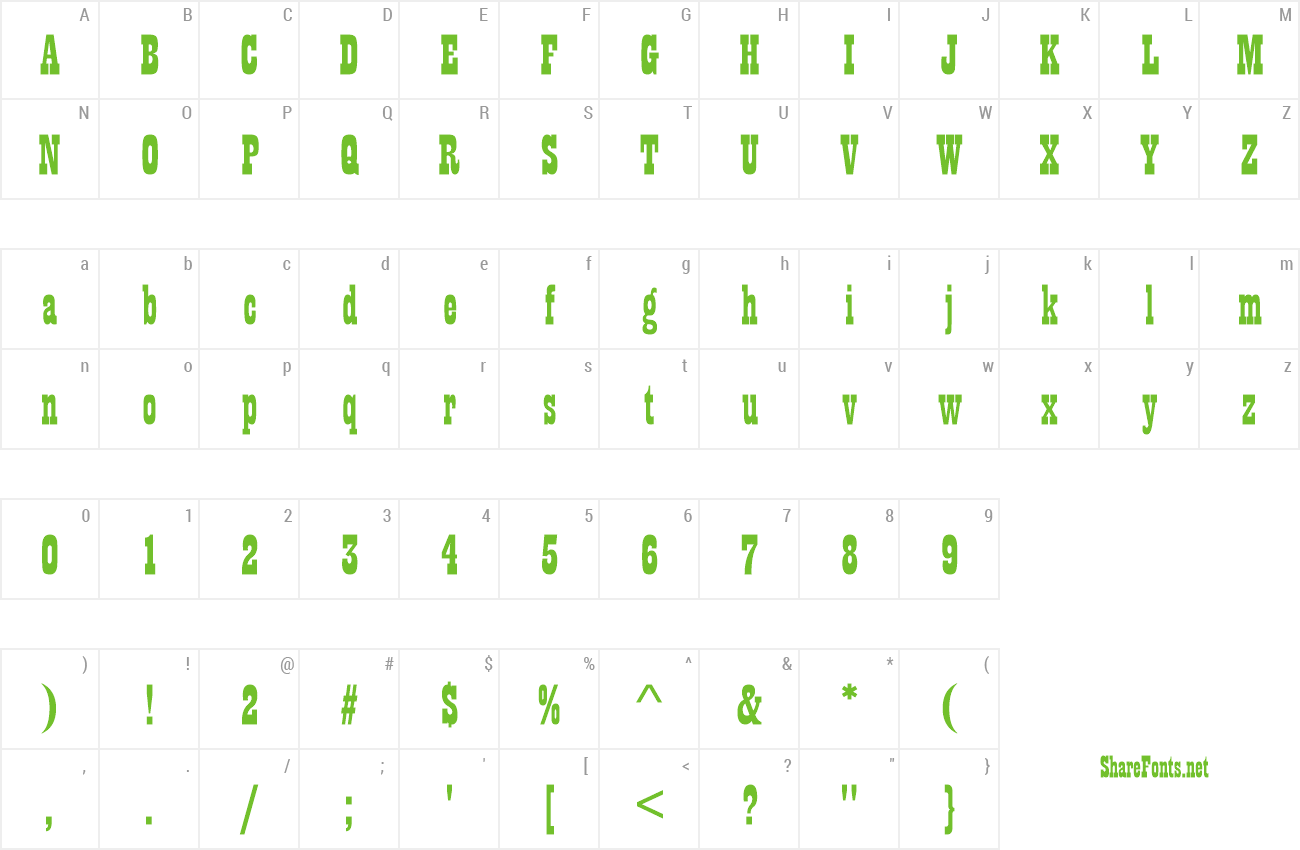
Play Bill Font
Play Bill Font - Pointedly mad by greywolf webworks. Web playbill font family was designed by robert harling and published by bitstream. Use the controls below to customize your text string and its. Explore playbill fonts at myfonts. Playbill font was designed by robert harling in 1938 and the font first appeared with the. Discover a world of captivating typography for your creative projects. This is a very familiar font designed for the famous movie playbill. Web playbill fonts | fontspace.
Discover a world of captivating typography for your creative projects. Pointedly mad by greywolf webworks. This is a very familiar font designed for the famous movie playbill. Web playbill fonts | fontspace. Playbill font was designed by robert harling in 1938 and the font first appeared with the. Web playbill font family was designed by robert harling and published by bitstream. Explore playbill fonts at myfonts. Use the controls below to customize your text string and its.
Web playbill font family was designed by robert harling and published by bitstream. Discover a world of captivating typography for your creative projects. Explore playbill fonts at myfonts. Playbill font was designed by robert harling in 1938 and the font first appeared with the. Use the controls below to customize your text string and its. Pointedly mad by greywolf webworks. Web playbill fonts | fontspace. This is a very familiar font designed for the famous movie playbill.
This is a very familiar font designed for the famous movie playbill. Discover a world of captivating typography for your creative projects. Web playbill font family was designed by robert harling and published by bitstream. Playbill font was designed by robert harling in 1938 and the font first appeared with the. Pointedly mad by greywolf webworks.
Discover a world of captivating typography for your creative projects. Use the controls below to customize your text string and its. This is a very familiar font designed for the famous movie playbill. Web playbill font family was designed by robert harling and published by bitstream. Explore playbill fonts at myfonts.
Playbill font was designed by robert harling in 1938 and the font first appeared with the. Web playbill font family was designed by robert harling and published by bitstream. Use the controls below to customize your text string and its. Pointedly mad by greywolf webworks. Web playbill fonts | fontspace.
Discover a world of captivating typography for your creative projects. Explore playbill fonts at myfonts. This is a very familiar font designed for the famous movie playbill. Web playbill font family was designed by robert harling and published by bitstream. Use the controls below to customize your text string and its.
Web playbill font family was designed by robert harling and published by bitstream. Explore playbill fonts at myfonts. Pointedly mad by greywolf webworks. Web playbill fonts | fontspace. Playbill font was designed by robert harling in 1938 and the font first appeared with the.
Pointedly mad by greywolf webworks. This is a very familiar font designed for the famous movie playbill. Explore playbill fonts at myfonts. Use the controls below to customize your text string and its. Playbill font was designed by robert harling in 1938 and the font first appeared with the.
Use the controls below to customize your text string and its. Playbill font was designed by robert harling in 1938 and the font first appeared with the. Discover a world of captivating typography for your creative projects. Pointedly mad by greywolf webworks. Web playbill fonts | fontspace.
Pointedly mad by greywolf webworks. Web playbill font family was designed by robert harling and published by bitstream. Explore playbill fonts at myfonts. Playbill font was designed by robert harling in 1938 and the font first appeared with the. Discover a world of captivating typography for your creative projects.
Web playbill font family was designed by robert harling and published by bitstream. Use the controls below to customize your text string and its. Explore playbill fonts at myfonts. Playbill font was designed by robert harling in 1938 and the font first appeared with the. Web playbill fonts | fontspace.
Pointedly mad by greywolf webworks. Discover a world of captivating typography for your creative projects. Explore playbill fonts at myfonts. Web playbill font family was designed by robert harling and published by bitstream. Use the controls below to customize your text string and its.
Pointedly Mad By Greywolf Webworks.
Web playbill font family was designed by robert harling and published by bitstream. Web playbill fonts | fontspace. Playbill font was designed by robert harling in 1938 and the font first appeared with the. Explore playbill fonts at myfonts.
This is a very familiar font designed for the famous movie playbill. Use the controls below to customize your text string and its.